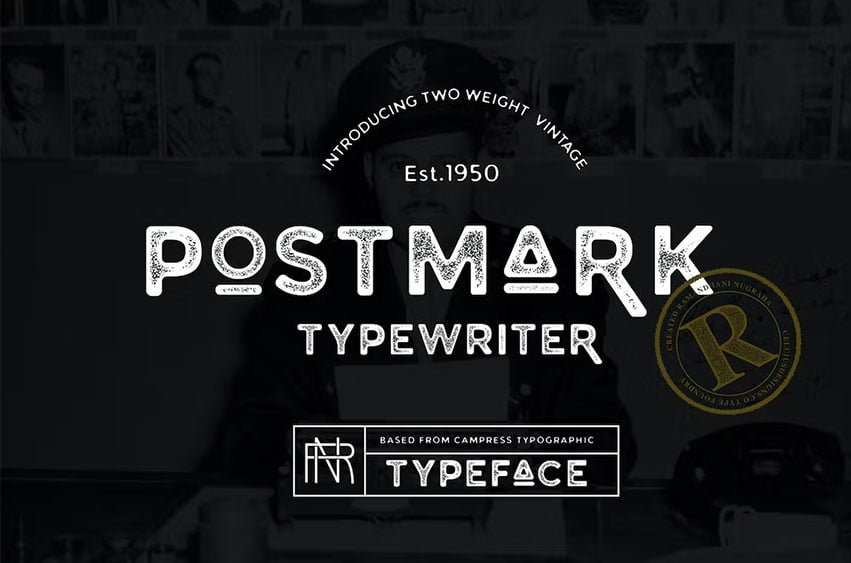
Postmark Font Typeface comes from the modern vintage typewriter and come with 2 weight style regular & rough version. Is perfect for Headline, vintage poster, gigs, article, Badges, Logo, or Event.
- Postmark_Regular comes with 110 glyphs (9 alternates : C, O, R, O, c, o, o.ss01, ampersand) & 1 Ligature (co)
- Postmark_Rough comes 113 glyphs Character (11 alternates : A, K, O, R, T, O, c, e, o, o.ss01, ampersand.) & 2 Ligatures (co & To)